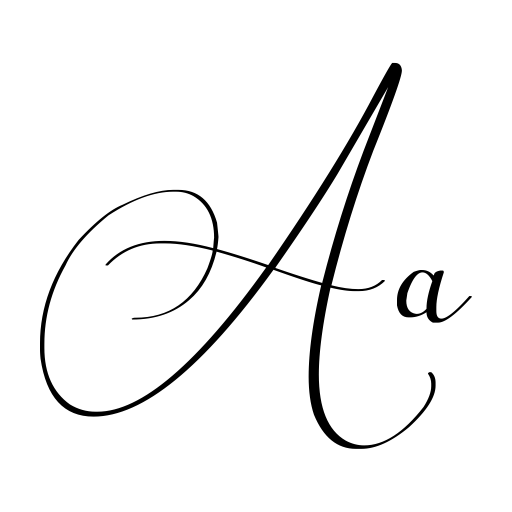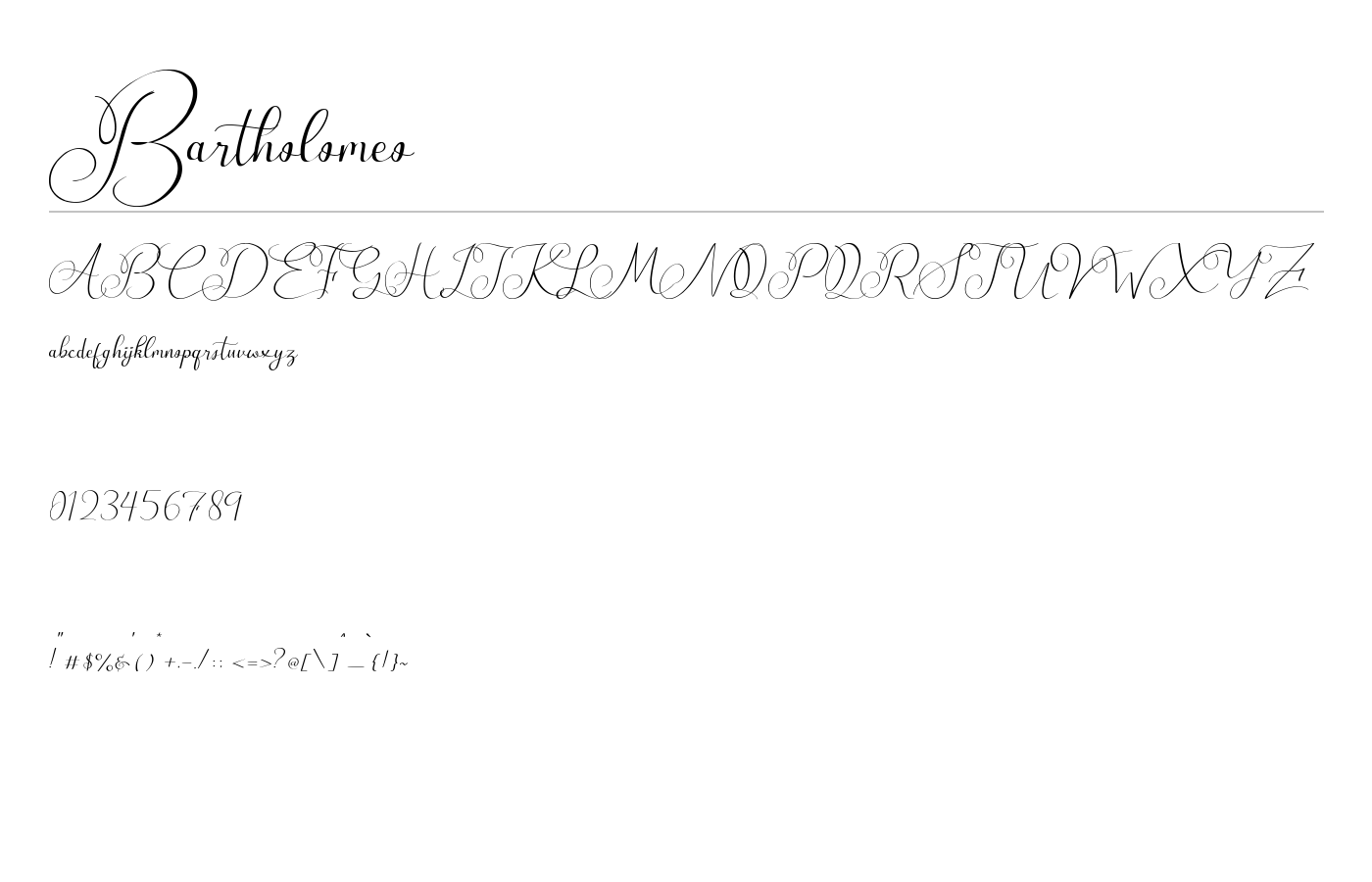
Bartholomeo Font
About Bartholomeo Font
Bartholomeo is an elegant, delicate script font characterized by its thin, flowing lines and intricate flourish details that give it a refined, classical feel. Its fine strokes and ornate uppercase letters create a sense of sophistication, making it perfect for luxury branding, wedding invitations, and high-end editorial projects where a graceful, romantic touch is desired. The font’s airy spacing and graceful curves work best in large sizes to showcase its decorative qualities with clarity and charm.